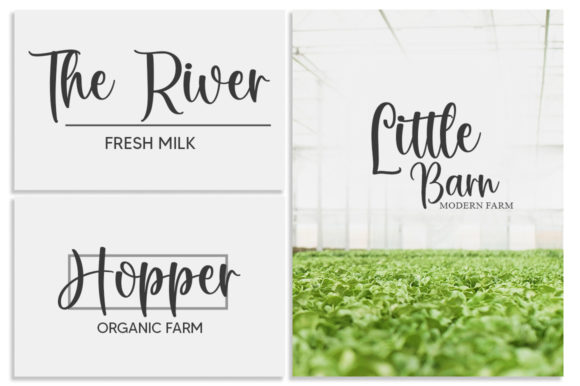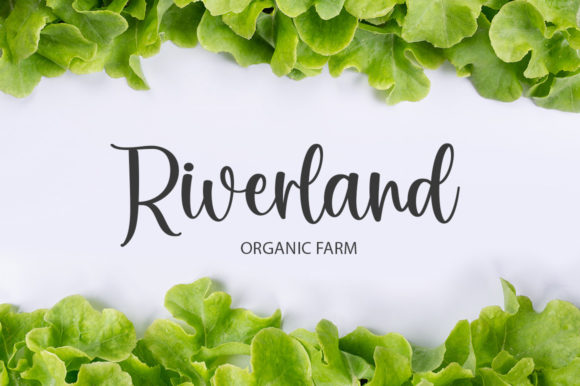
About Spring Shower Font
“Spring Shower” is described as a delicate, elegant, and flowing handwritten font. This suggests a font with a refined and graceful appearance, likely suitable for projects that require a touch of sophistication and natural fluidity.
The term “delicate” implies a gentle and subtle quality, while “elegant” suggests a stylish and sophisticated aesthetic. Combined with “flowing,” it indicates that the font may have a smooth and graceful flow, making it versatile for a range of design purposes.
The mention of “beautiful and well-balanced characters” suggests that “Spring Shower” pays attention to the design of individual letterforms, ensuring harmony and coherence in the overall typeface. Well-balanced characters contribute to the readability and aesthetic appeal of a font.
The statement that it “matches a wide pool of designs” emphasizes the versatility of “Spring Shower.” This implies that the font can be applied to various projects, providing flexibility for designers working on different creative endeavors.
In summary, “Spring Shower” is positioned as a handwritten font with delicate, elegant, and flowing characteristics. Its versatility and well-balanced characters make it suitable for a broad range of design applications, from formal to creative projects.